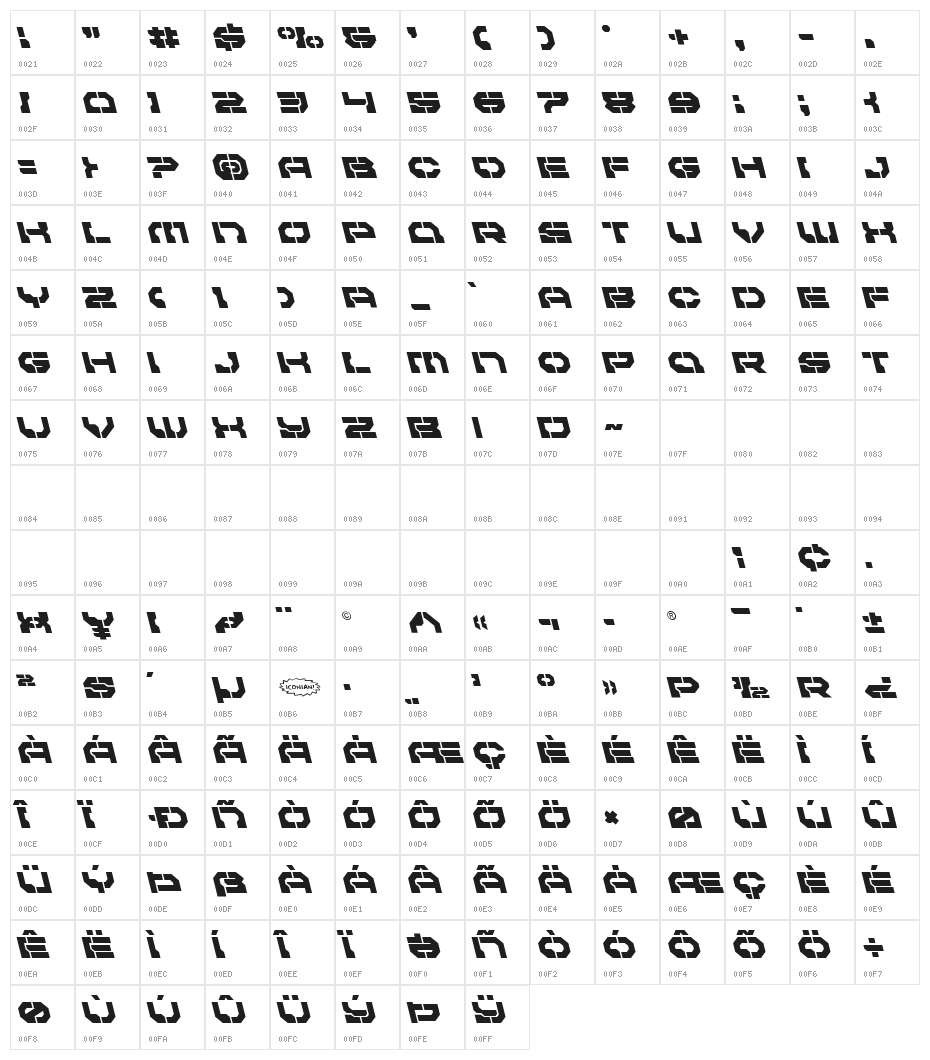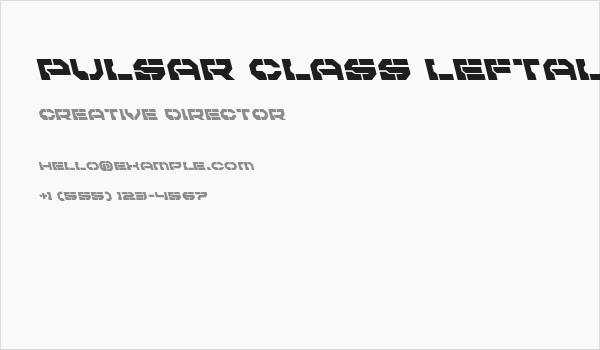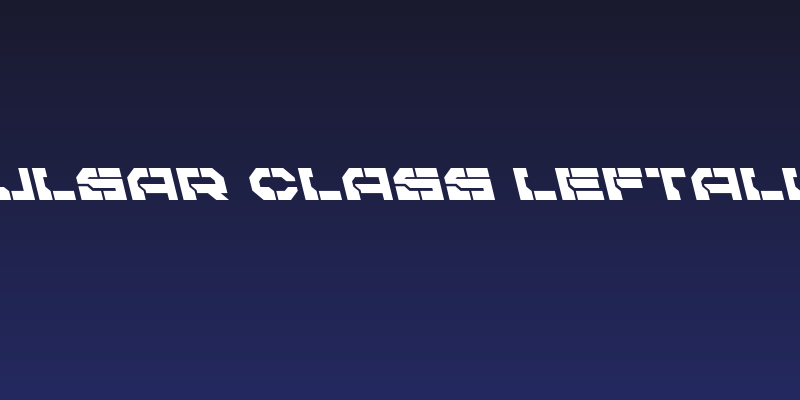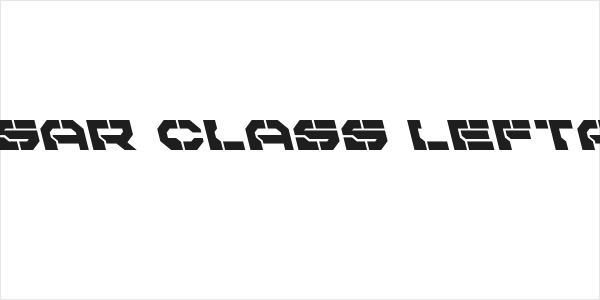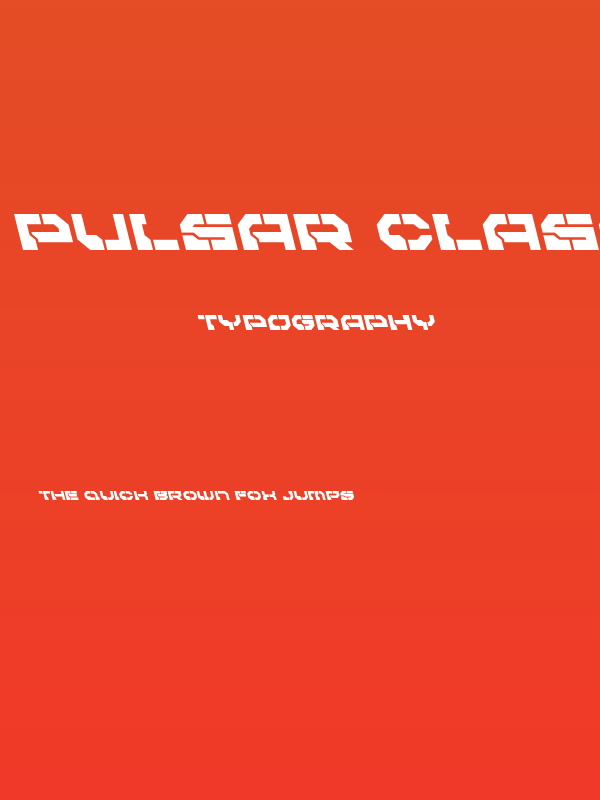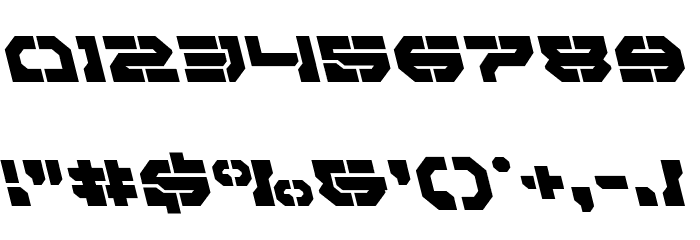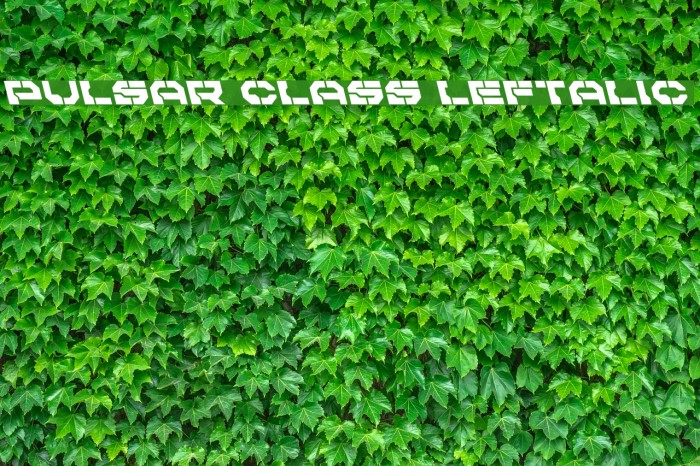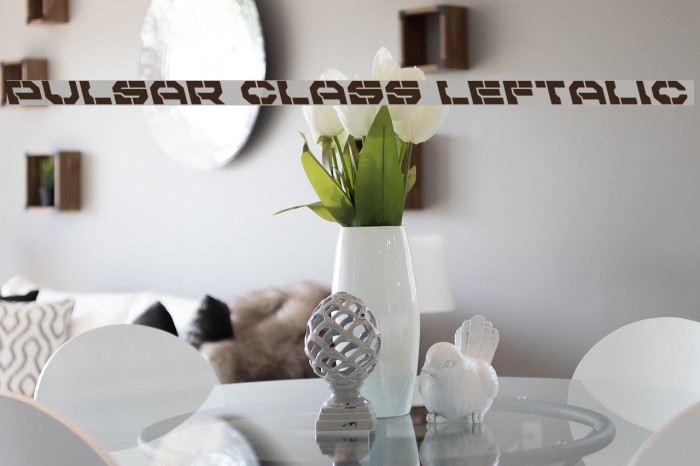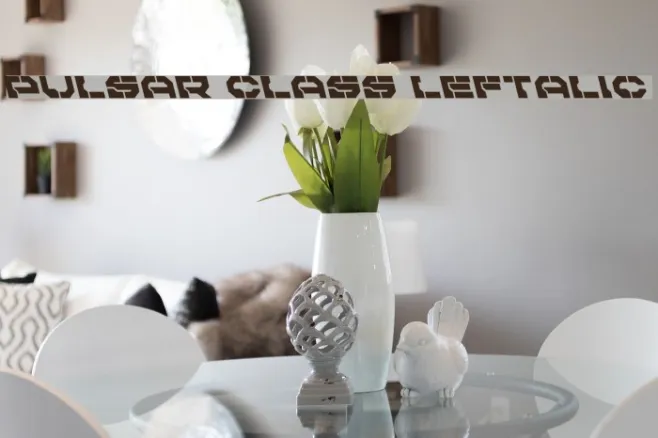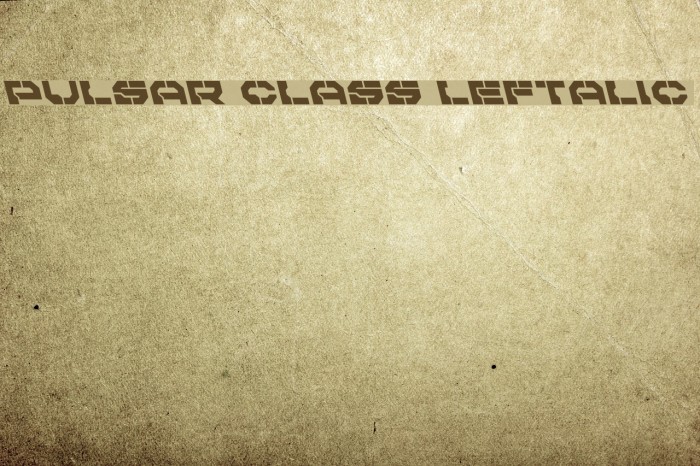
Pulsar Class Leftalic Font
Pulsar Class Leftalic Description
This font features a bold, futuristic design with angular, geometric shapes that create a sense of movement and energy. The characters are constructed with sharp edges and a blocky appearance, giving them a strong, impactful presence. The style is reminiscent of digital or sci-fi themes, making it ideal for projects that require a modern and edgy look. The uppercase and lowercase letters maintain a consistent style, while the numbers and special characters complement the overall aesthetic. The font's unique structure makes it stand out, perfect for capturing attention.
| Proposed Projects | Ideal for sci-fi themed designs, video game titles, tech branding, and futuristic posters. |